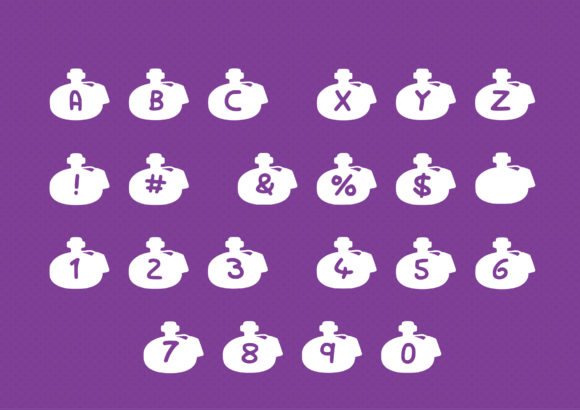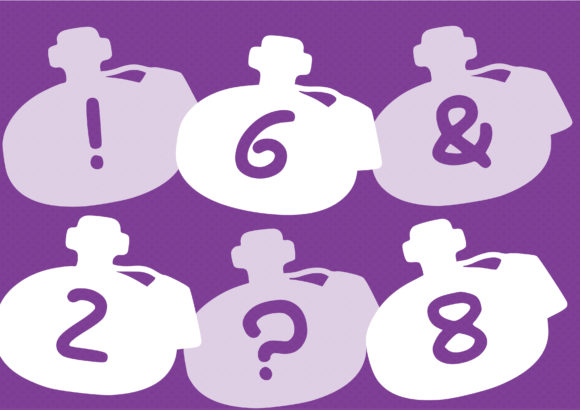
Introduction to Play Potion Font
As designers, we’ve all been there – staring at a blank page, searching for the perfect font to elevate our creative project. The excitement builds as we browse through our design resources, but sometimes, the perfect fit eludes us. That’s where the enchanting Play Potion Font comes in – a magical addition to our design arsenal.
With its whimsical charm and high-quality design, the Play Potion Font is the perfect choice for special occasions. Whether you’re crafting product packaging, designing a title for a book cover, or creating a banner for a grand event, this font is sure to add a touch of magic to your work.
What sets the Play Potion Font apart is its versatility and value for designers. Not only is it a free download, but it also features a transparent background, making it easy to integrate into any design project. So why settle for an ordinary font when you can add a dash of fantasy to your work with the Play Potion Font?
Key Features of Play Potion Font
- High-quality design resource for creative projects, ideal for use in digital art, graphic design, and typography.
- Includes a range of characters, including uppercase and lowercase letters, numbers, and special symbols.
- Designed with a unique, whimsical style that adds a touch of magic to any creative project.
Honest Review: Play Potion Font
As a designer, I’m always on the lookout for high-quality fonts that can elevate my creative projects. The Play Potion Font is a great addition to my design resource collection, offering a unique and whimsical style that’s perfect for a variety of applications.
- ✨ The font’s high-quality design ensures that it looks crisp and clear, even at larger font sizes.
- ⚠️ The font’s unique style may not be suitable for all types of projects, particularly those that require a more formal or traditional tone.
Overall, I’m impressed with the Play Potion Font and would definitely recommend it to designers who are looking for a fun and playful addition to their design resource collection. While it may have some limitations, its unique style and high-quality design make it a valuable asset for any creative project.
Play Potion Font
The Play Potion Font is a high-quality, free download design resource ideal for creative projects. This font features a unique, magical style with a transparent background, perfect for adding a touch of whimsy to your designs.
Getting the Most Out of Play Potion Font
To get the most out of the Play Potion Font, experiment with different font sizes, colors, and combinations with other design elements. You can also use the font in conjunction with other design resources, such as graphics and images, to create a unique and eye-catching design.
The Play Potion Font is ideal for a variety of creative projects, including:
- Presentation slides and reports
- Magazine and book covers